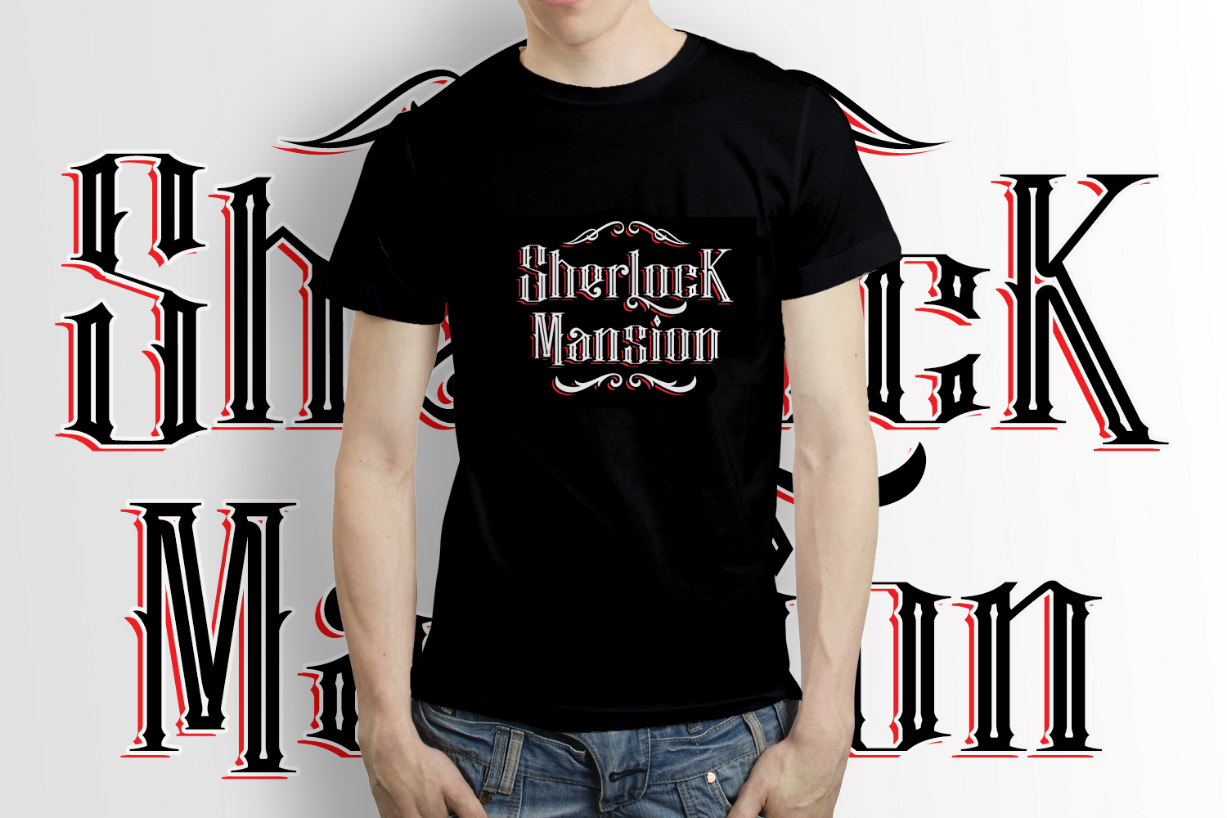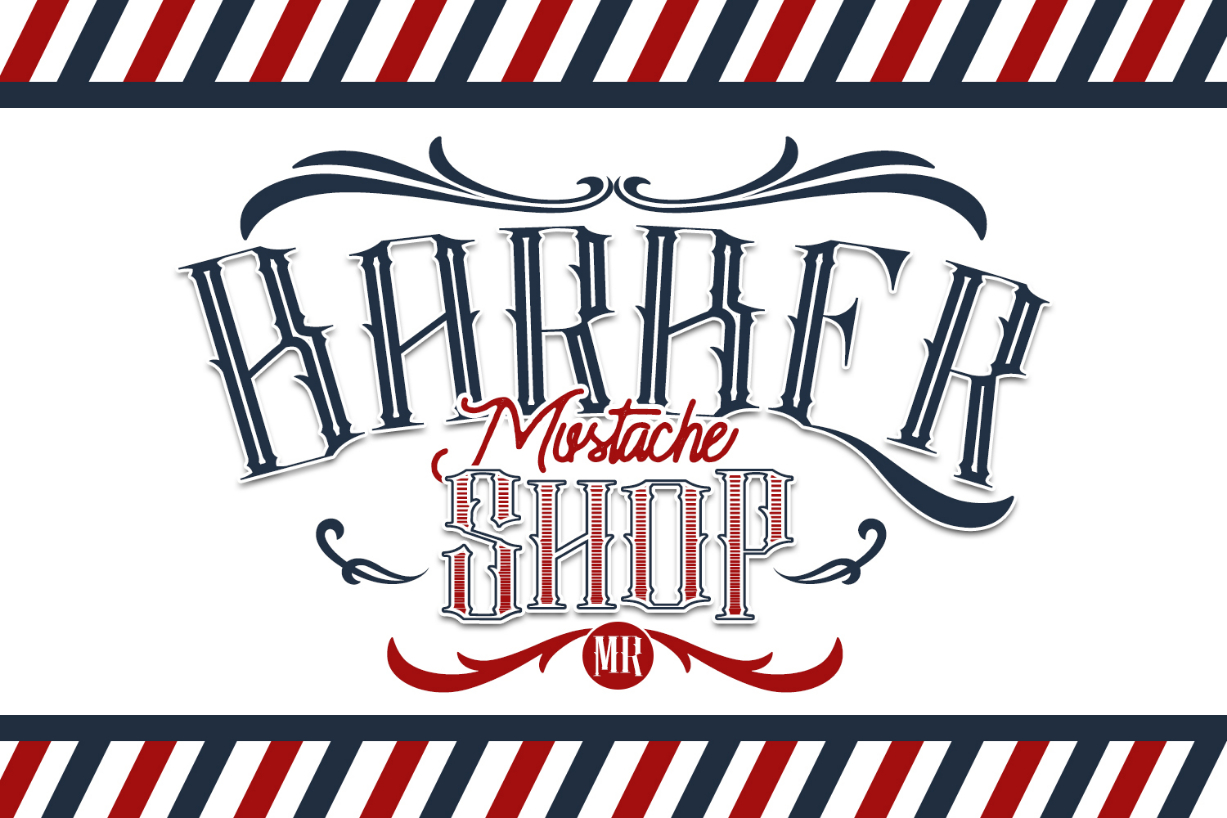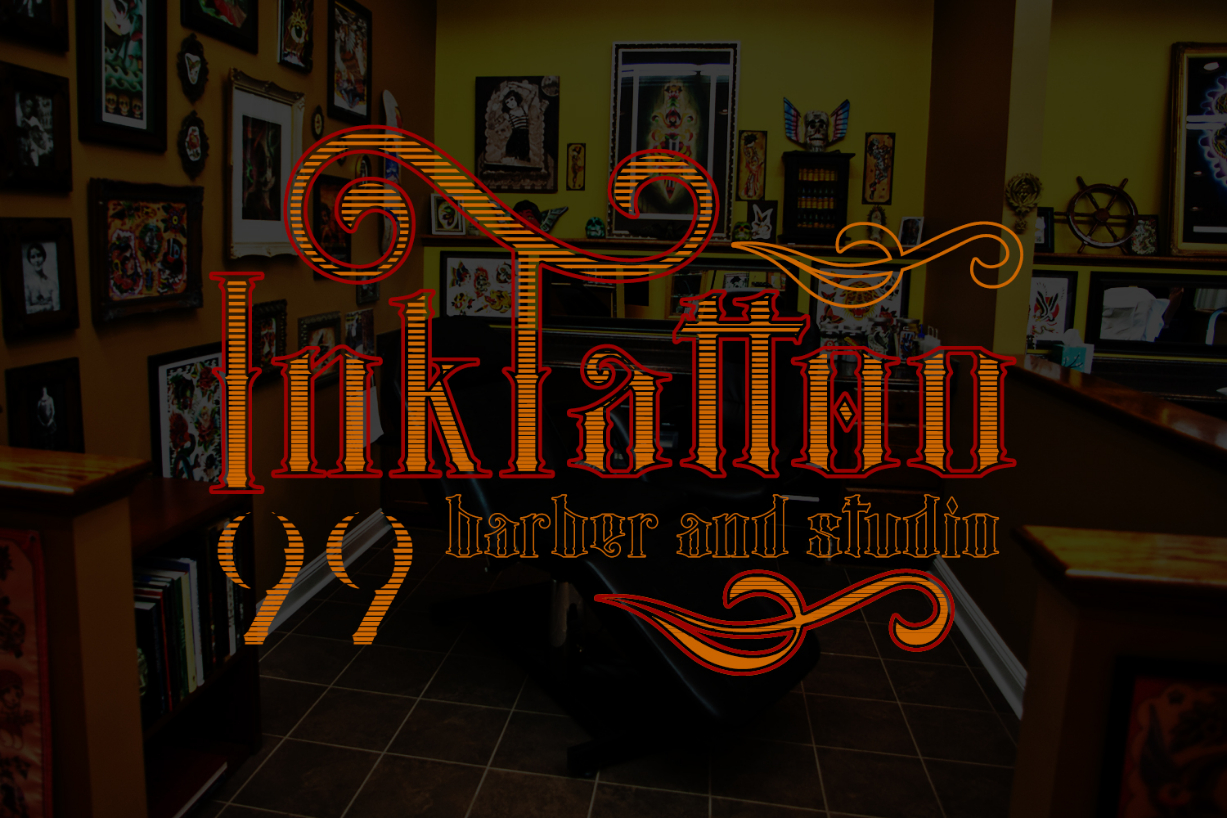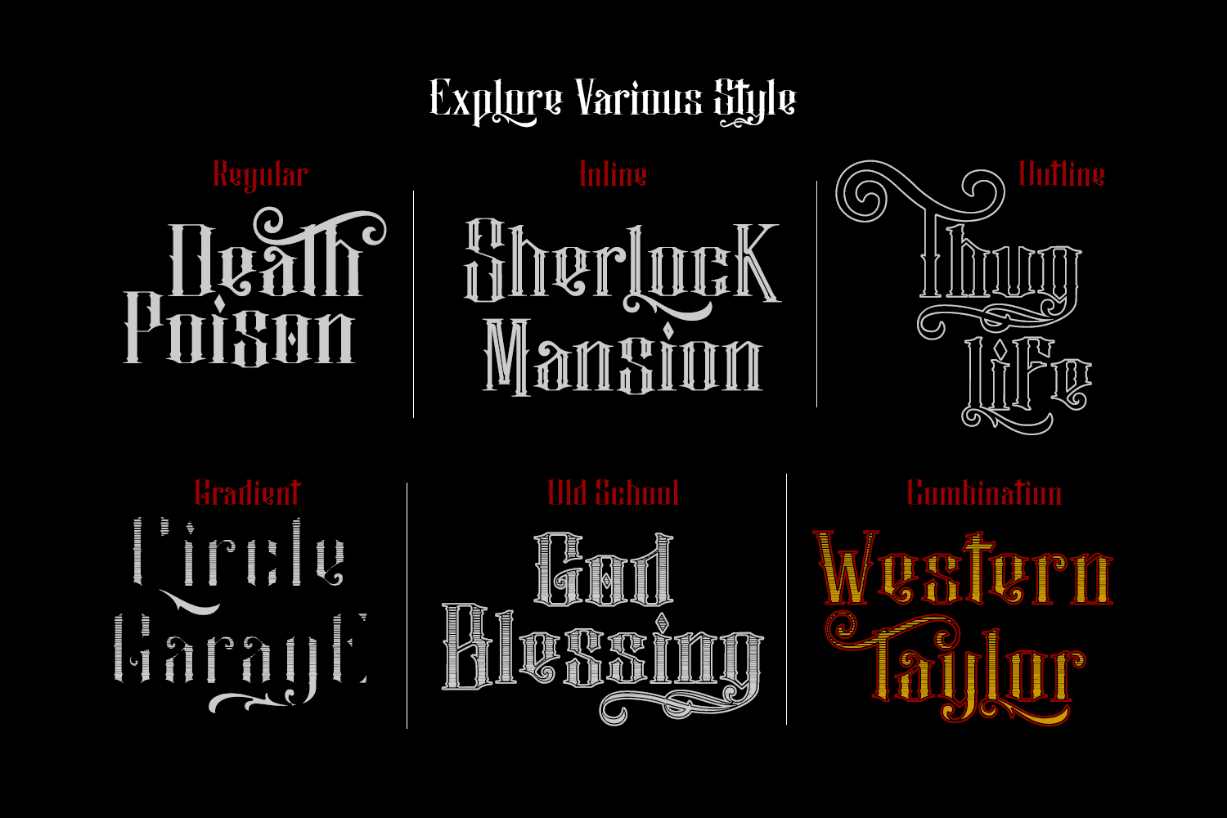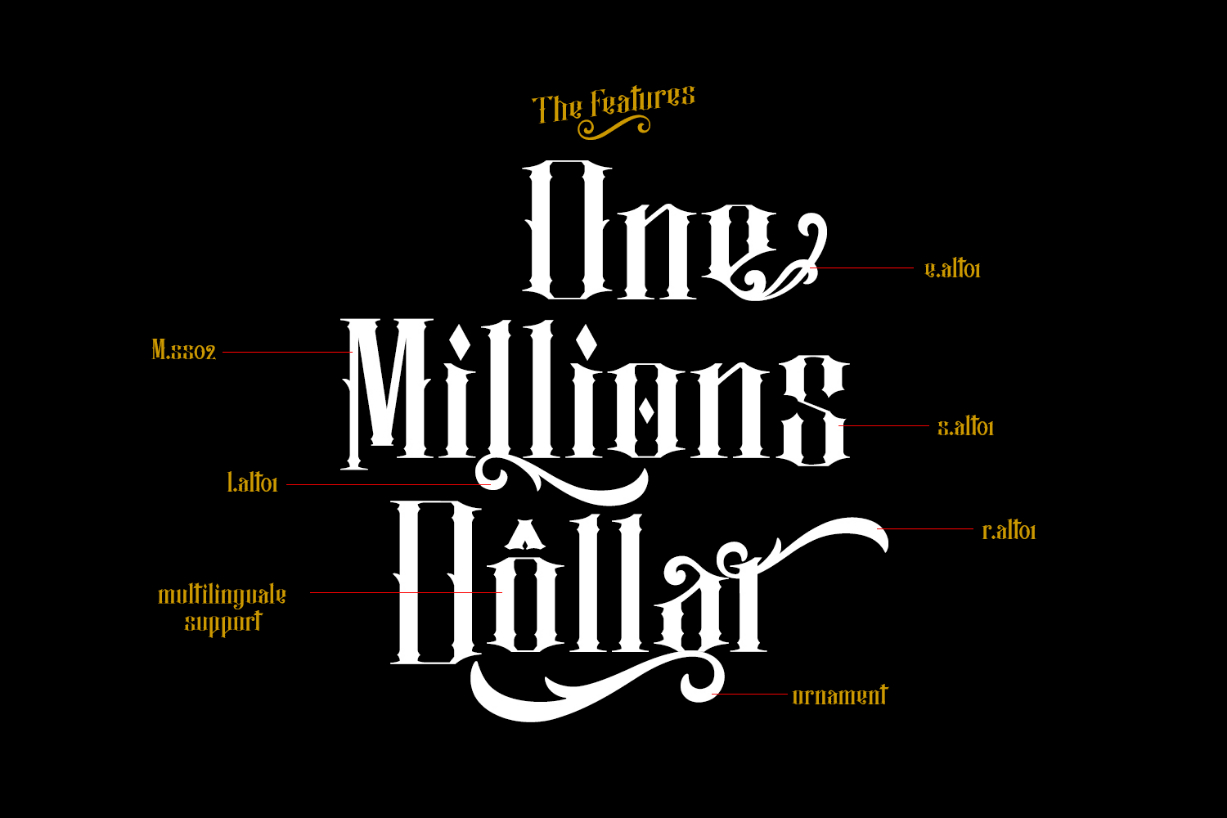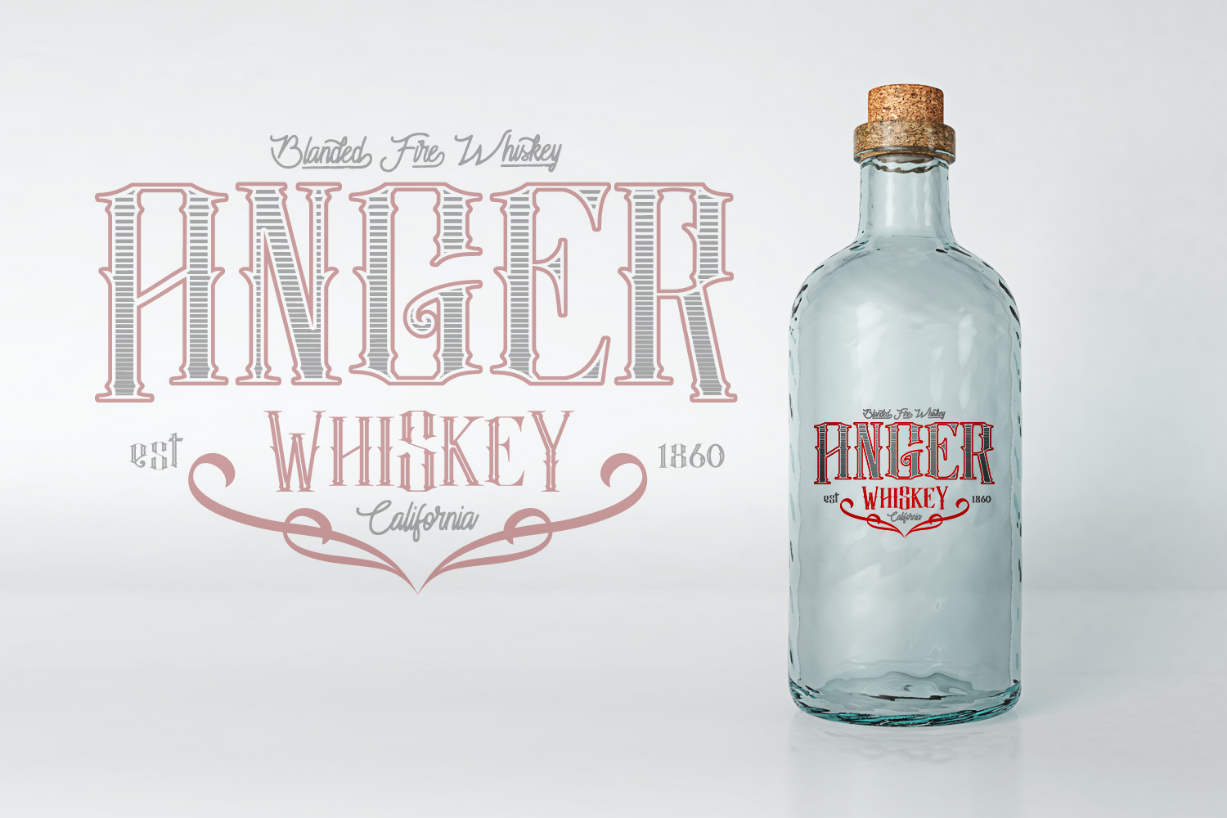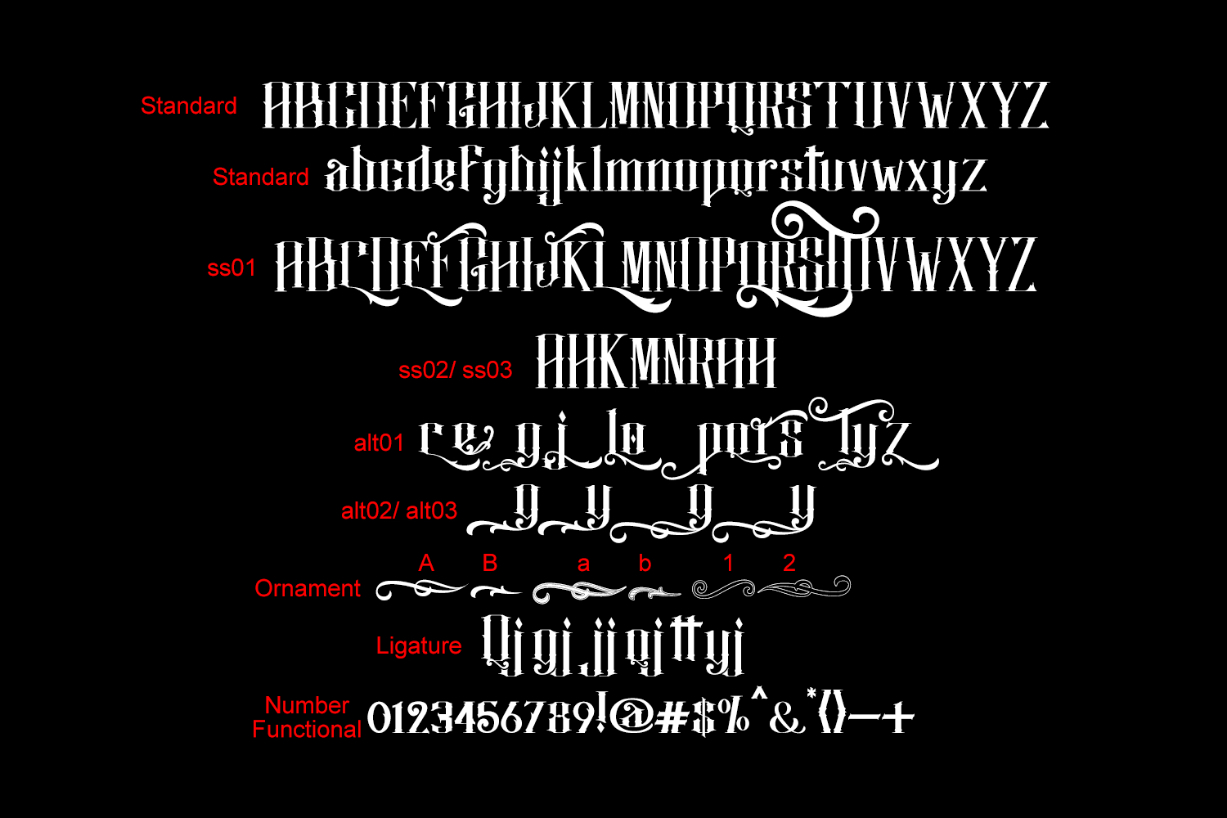
Justify Font
About Justify Font
Make your designs stand out with Justify, a stylish and unique blackletter font. It looks stunning on posters, thank you cards, quotes, greeting cards, logos, business cards and every other design which needs a creative touch.